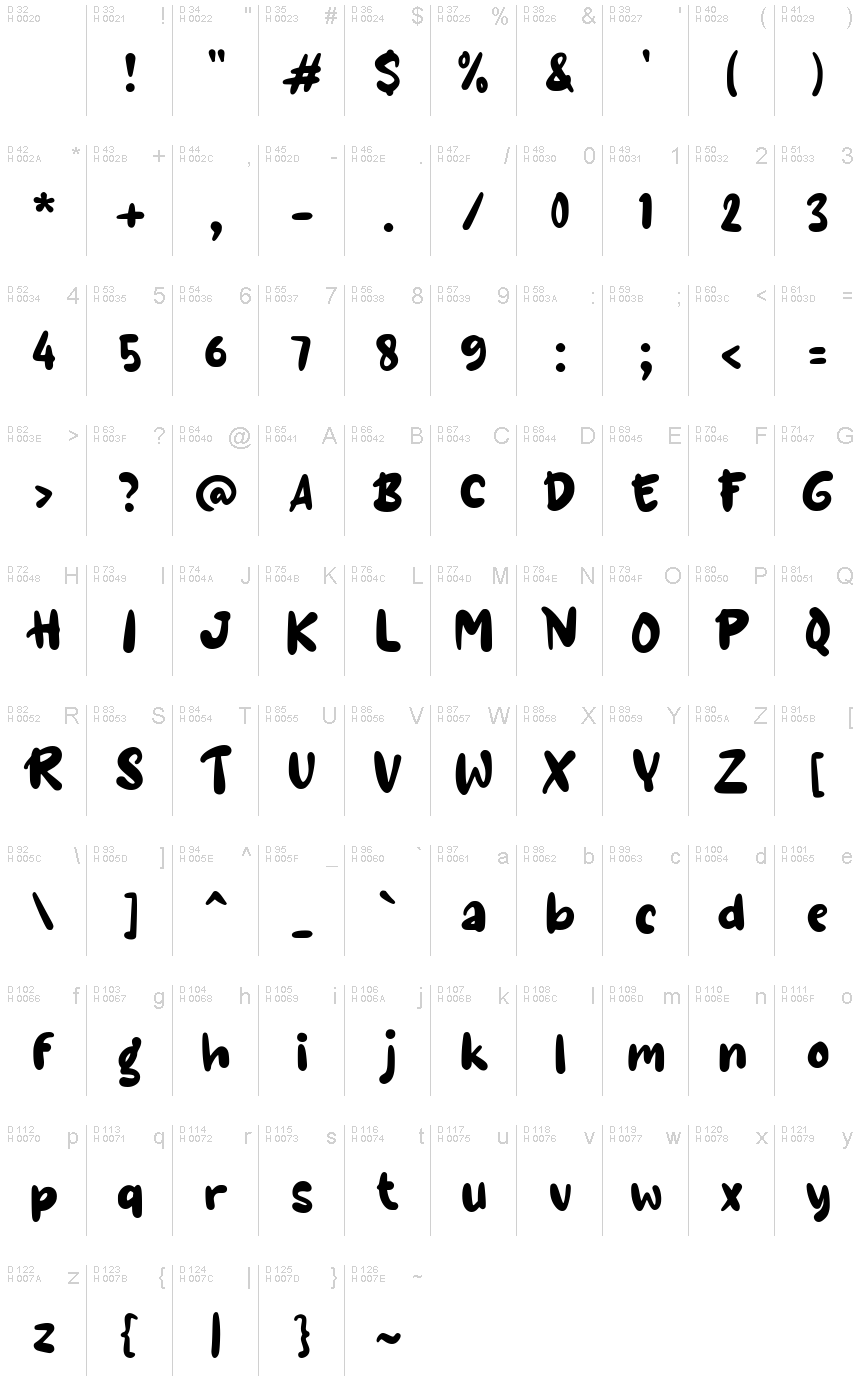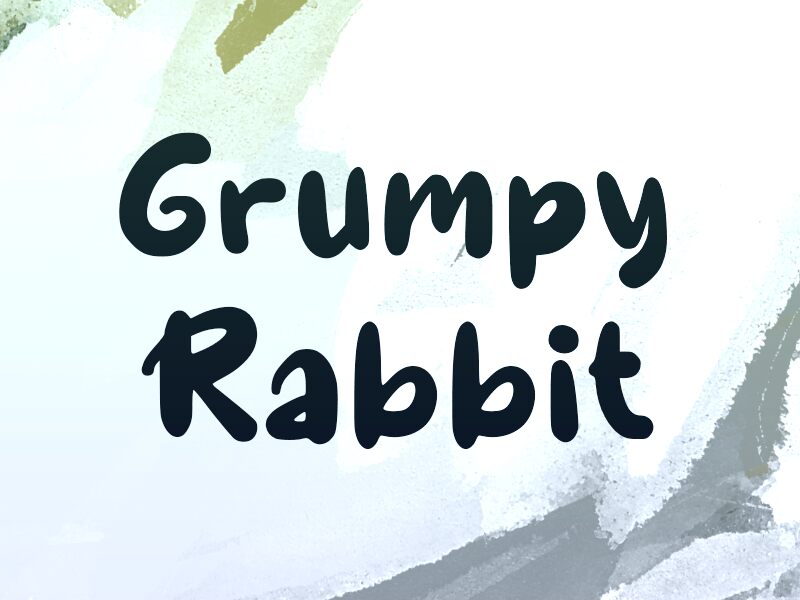
Grumpy Rabbit
Grumpy Rabbit is a bold, cartoon-inspired font that exudes a delightfully quirky and unapologetic persona. Designed by wep, this display font immediately commands attention with its striking, thick strokes and playful, expressive letterforms. The irregular, almost hand-drawn quality of the characters lends a charming, imperfect aesthetic that perfectly captures the "grumpy" attitude of the rabbit mascot.
This font's versatility shines through its potential applications. From playful children's illustrations and whimsical branding to punchy headings and attention-grabbing promotional materials, Grumpy Rabbit's distinctive style can add a touch of personality and character to a wide range of design projects. Its bold, confident presence makes it an ideal choice for creating memorable and visually engaging designs that stand out in a crowd.